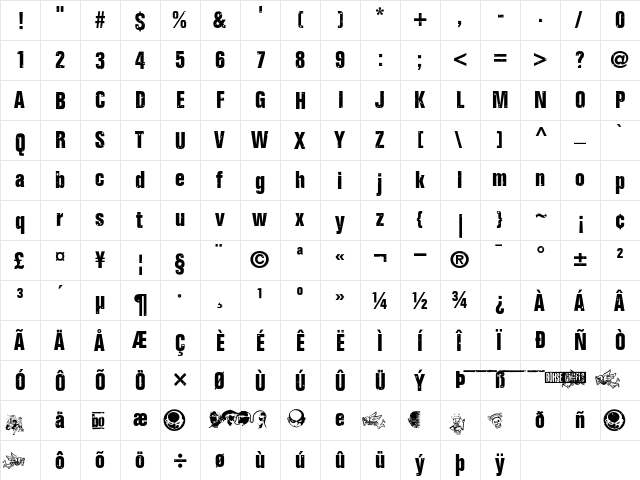
ONKELZ 2014 Regular
Design Context for ONKELZ 2014 Typeface
ONKELZ 2014 takes a measured approach to typography — its balanced proportions and neutral character make it a reliable workhorse for both digital and print work.